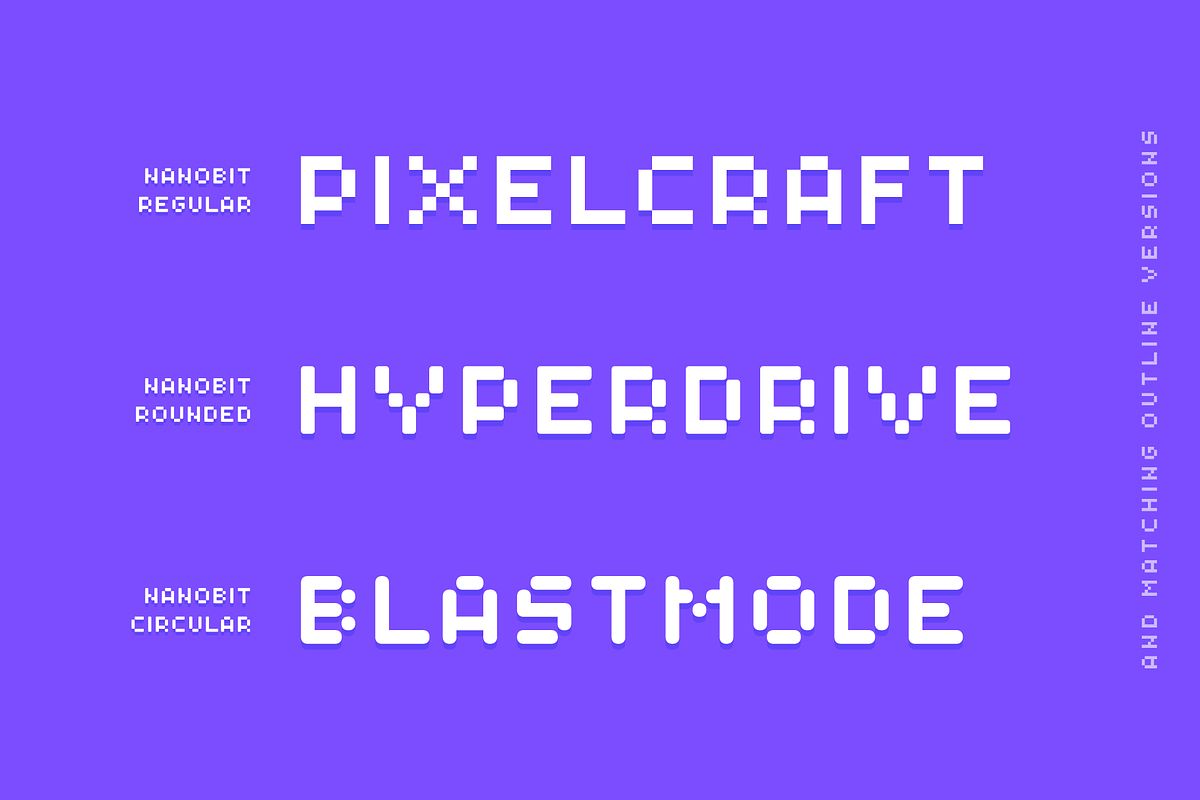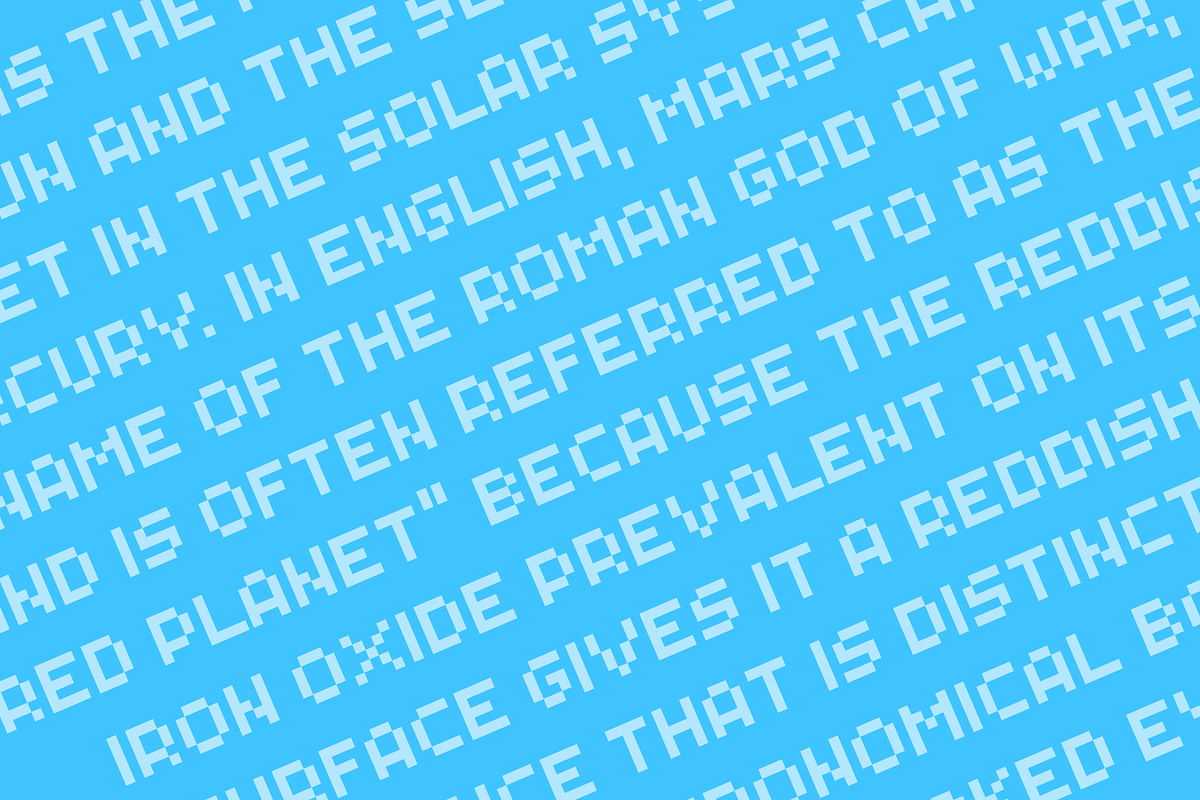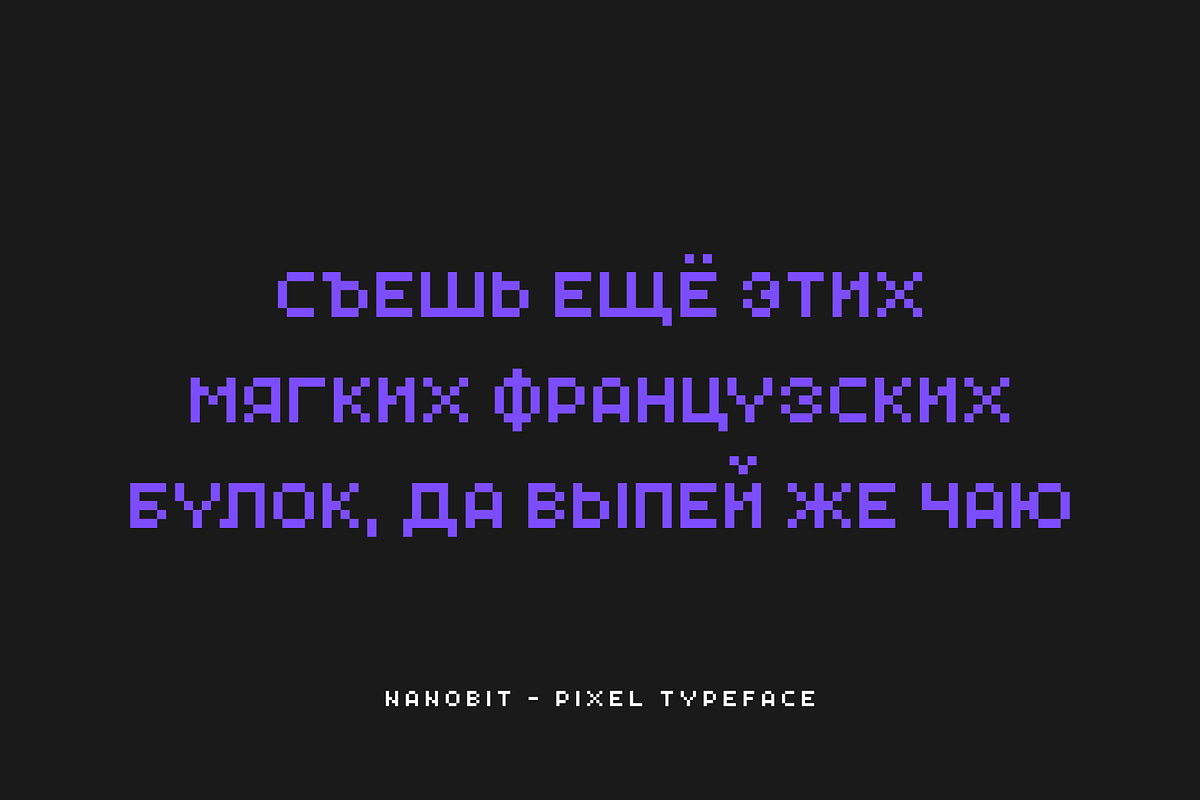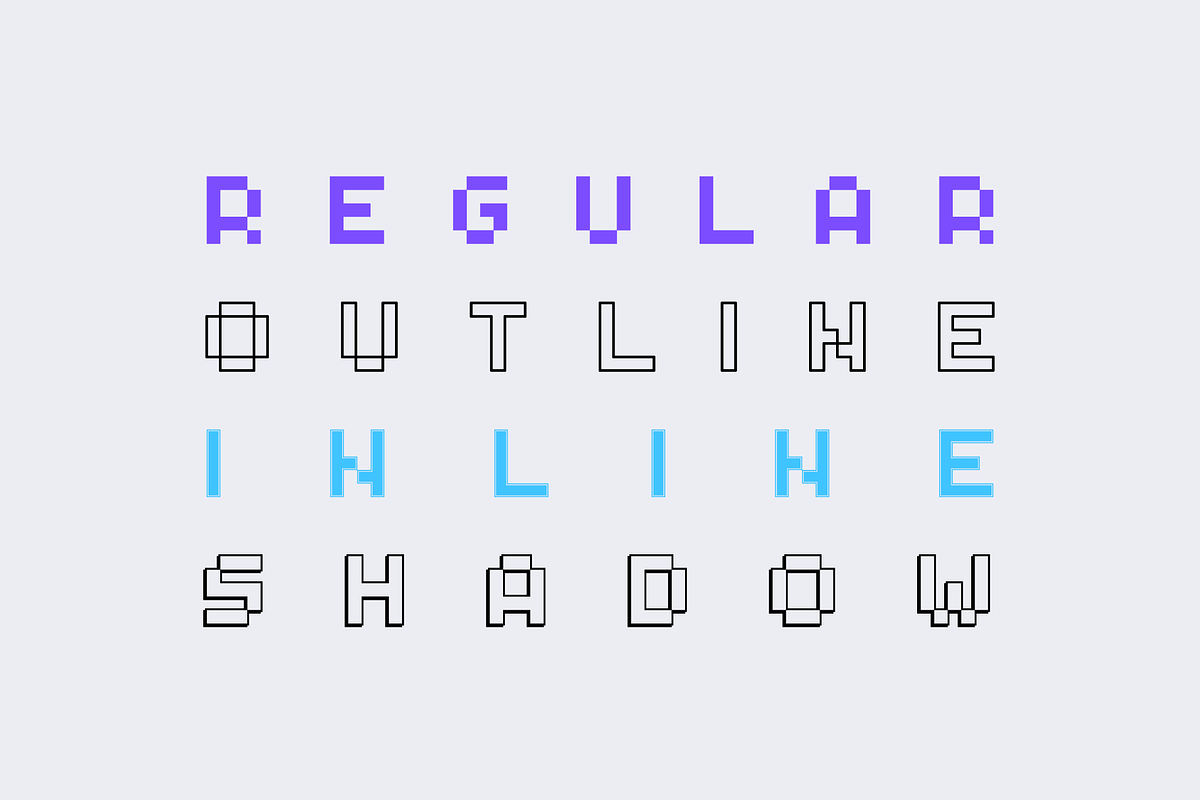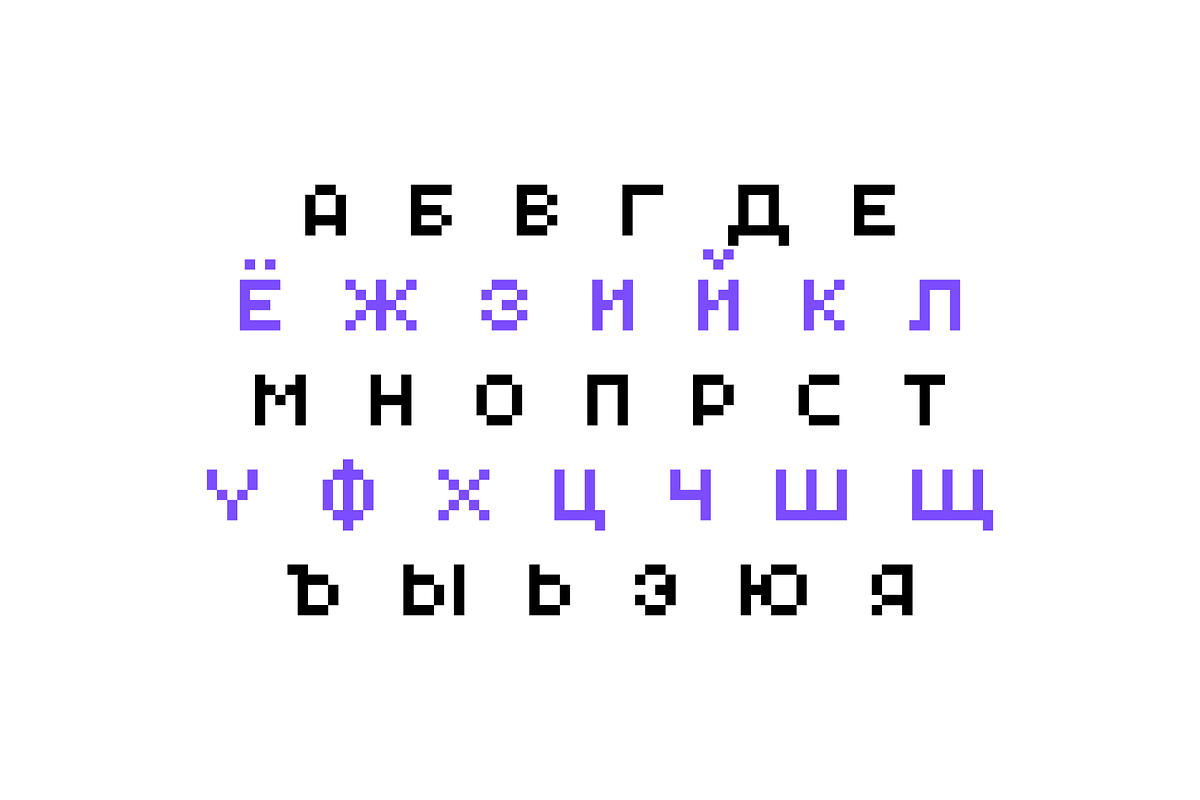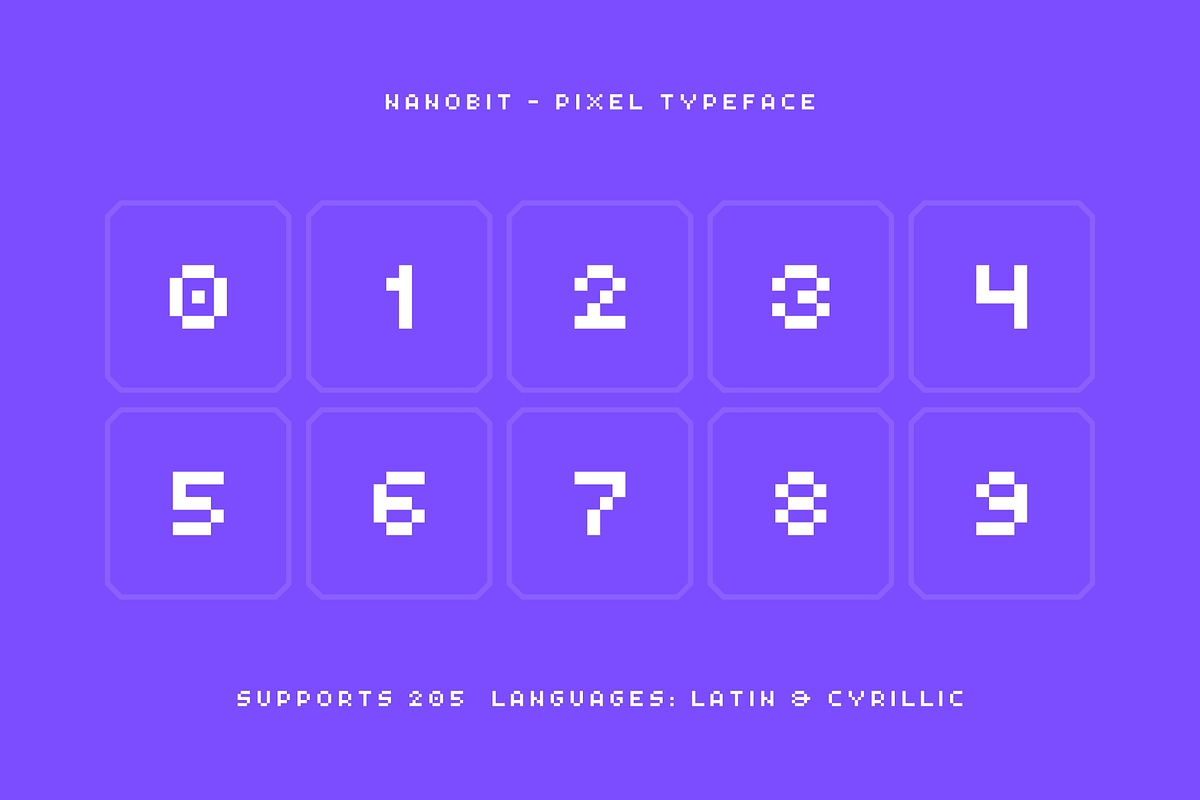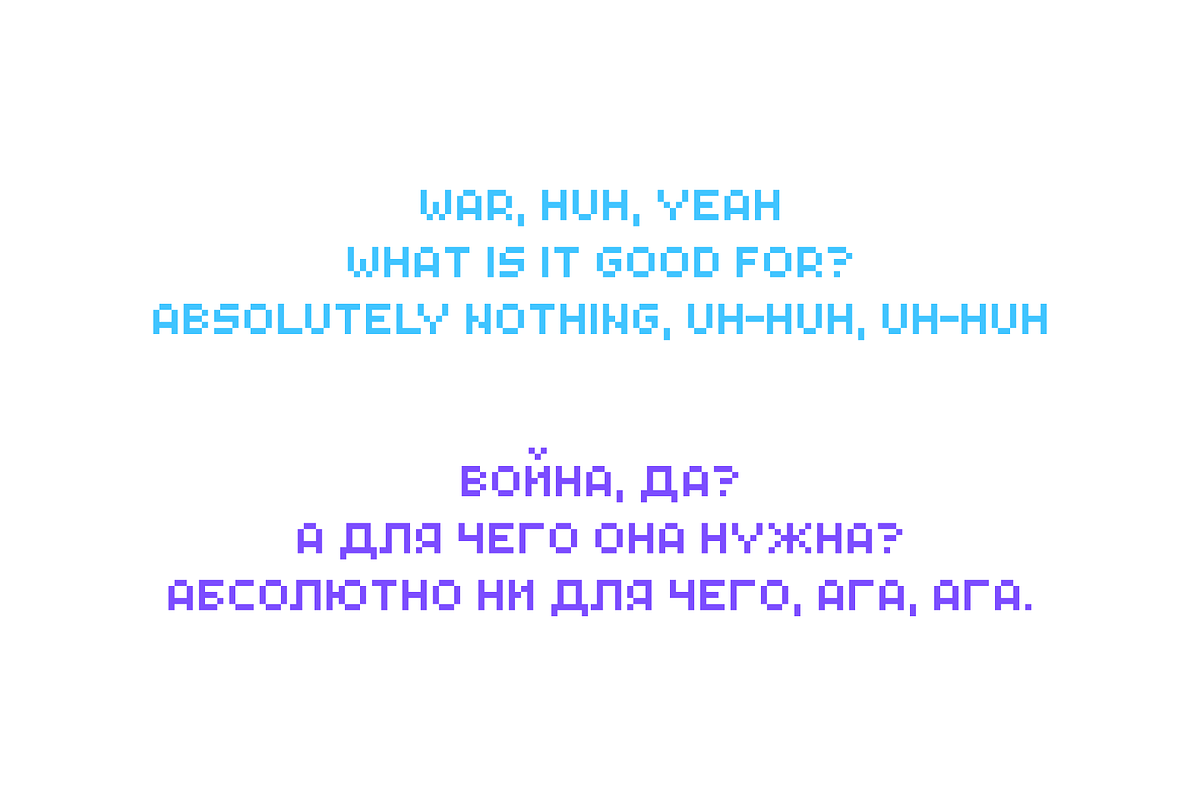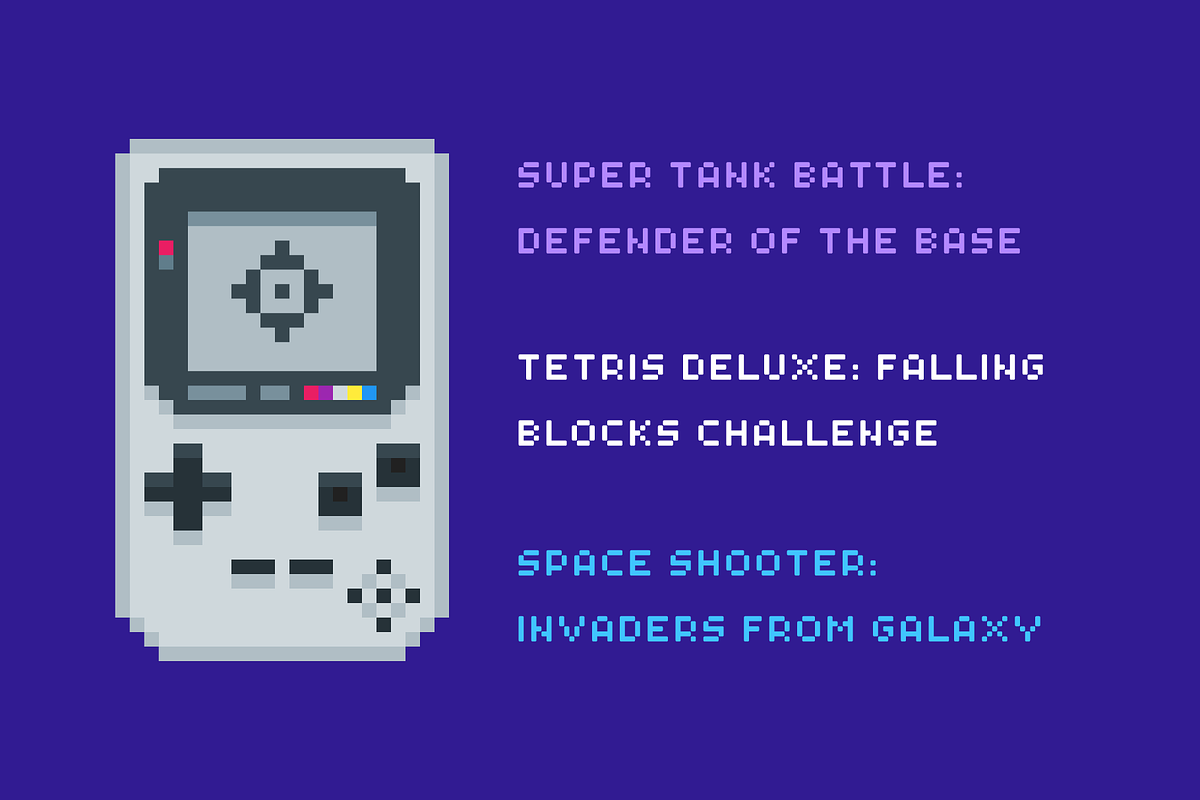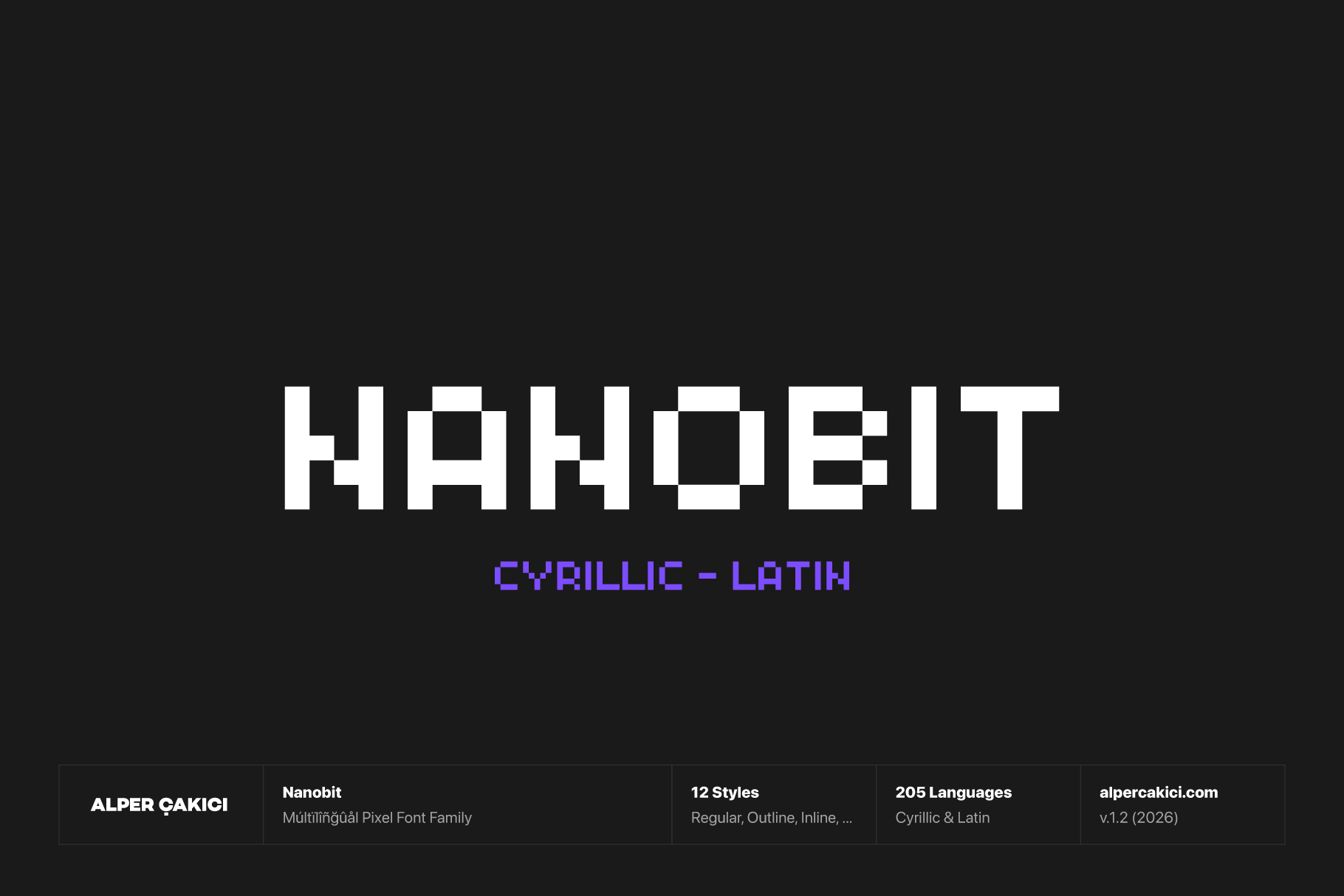
Nanobit - Pixel Typeface
Nanobit is a pixel typeface built on a precise 64px grid, combining a crisp digital aesthetic with a versatile collection of display styles. Designed for both screen and print, Nanobit brings the unmistakable character of pixel typography into contemporary branding, games, interfaces, posters, packaging, headlines, and editorial graphics.
The family includes 12 styles, giving designers multiple ways to build a complete visual system:
Nanobit Regular
Nanobit Inline
Nanobit Outline
Nanobit Shadow
Nanobit Circular
Nanobit Circular Inline
Nanobit Circular Outline
Nanobit Circular Shadow
Nanobit Rounded
Nanobit Rounded Inline
Nanobit Rounded Outline
Nanobit Rounded Shadow
The core Regular style provides a clean, structured pixel appearance, while the Inline and Outline styles introduce additional graphic depth. Shadow styles add dimensionality and a retro arcade-inspired character. Circular and Rounded variations soften the geometric construction, making the family suitable for applications that require a friendlier or more playful pixel aesthetic.
Nanobit supports Cyrillic and Latin, with 556 glyphs covering a broad range of contemporary typographic requirements. The family includes extensive OpenType support, including localized character substitutions for multiple languages and Cyrillic-specific forms.
Additional OpenType features include fractions, superior and inferior figures, ordinals, contextual character composition, and language-specific glyph substitutions. These features help Nanobit maintain correct typographic behavior across supported languages while providing additional flexibility for professional typesetting.
Its modular grid-based construction makes Nanobit particularly effective for video games, game interfaces, pixel art, retro-futuristic branding, technology projects, digital products, apps, websites, posters, titles, packaging, logos, merchandise, social media graphics, and editorial design.
Whether you need a sharp arcade-inspired headline, a futuristic digital identity, a playful gaming interface, or a distinctive display face for print, Nanobit offers a cohesive pixel-based system with enough stylistic variation to create everything from minimal layouts to highly dimensional typography.
Nanobit — 12 pixel styles, 64px grid, Cyrillic & Latin, 556 glyphs. Designed for both digital and print applications.